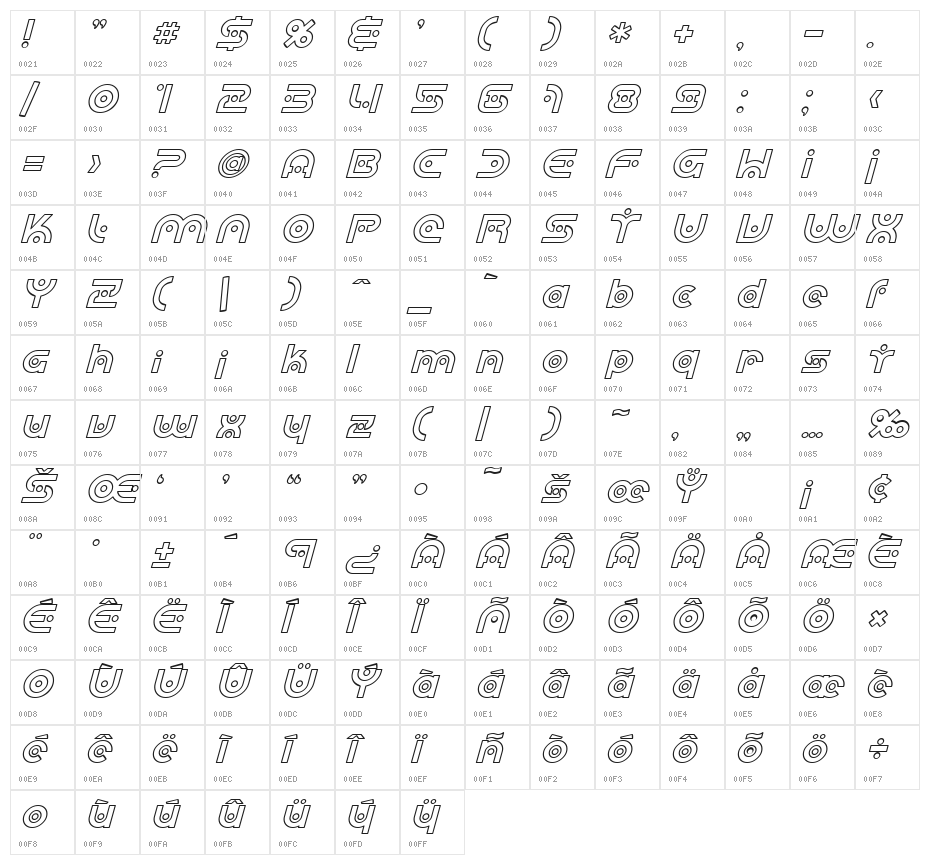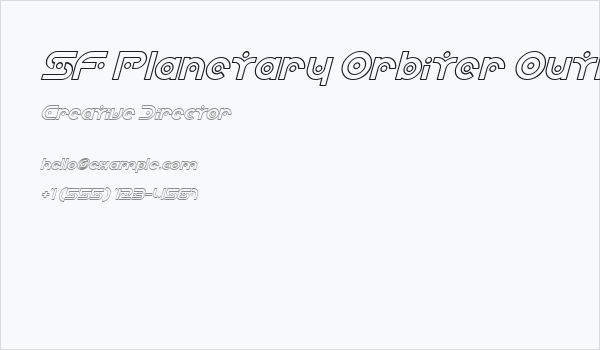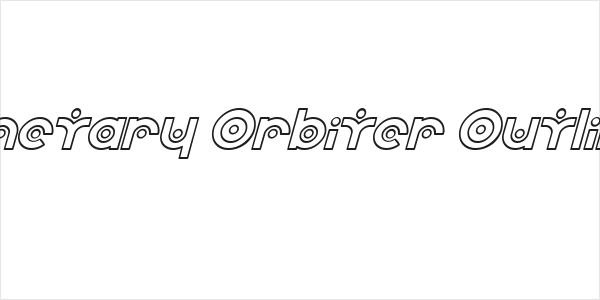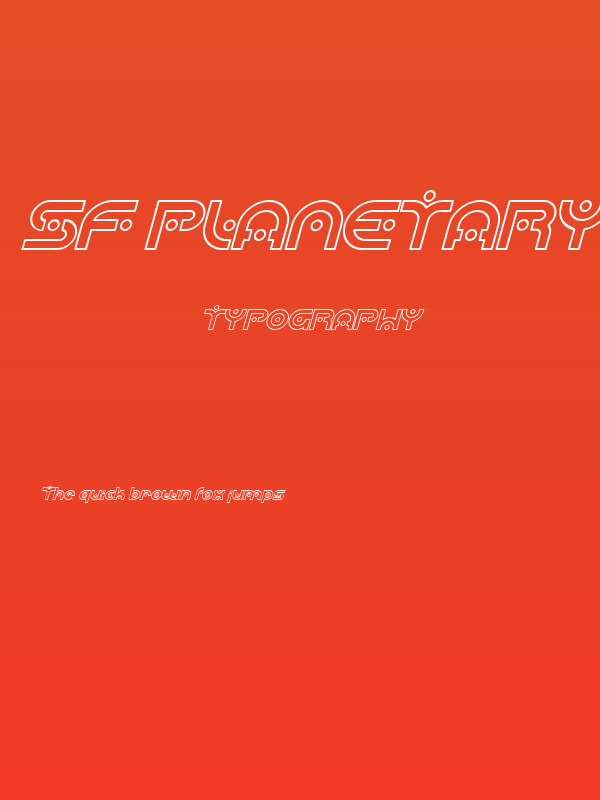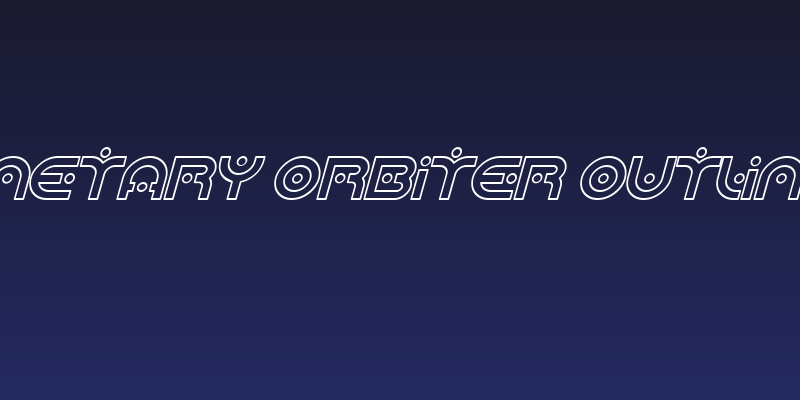
SF Planetary Orbiter Outline Italic Font
SF Planetary Orbiter Outline Italic Description
This font features a futuristic and geometric design with an outline style, giving it a sleek and modern appearance. The characters are italicized, adding a dynamic and forward-leaning aspect to the text. Each letter is crafted with a consistent stroke width, creating a uniform and cohesive look. The rounded edges and smooth curves contribute to its space-age aesthetic, making it ideal for projects that require a contemporary and innovative feel. The font's unique structure and style make it stand out, while maintaining readability.
Proposed ProjectsIdeal for sci-fi themed designs, technology branding, futuristic posters, and innovative product packaging.